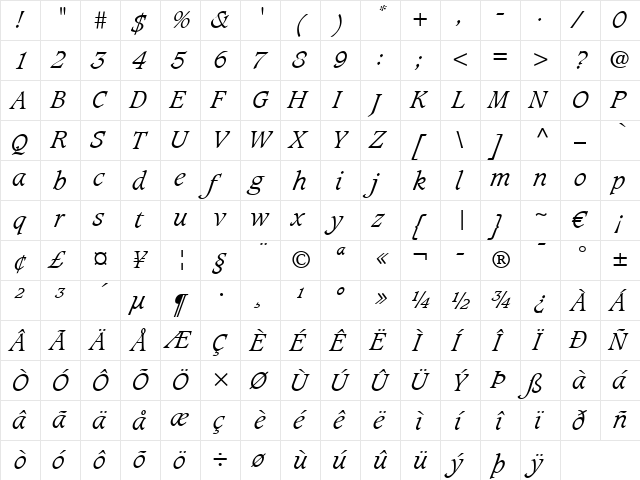
Caxton LT Light Italic Font Preview
Design Context for Caxton LT Light Typeface
Caxton LT Light takes a measured approach to typography — its balanced proportions and neutral character make it a reliable workhorse for both digital and print work. The dynamic lean of this cut emphasises speed and emphasis in any layout. The delicate stroke weight brings airiness and refinement to layouts.